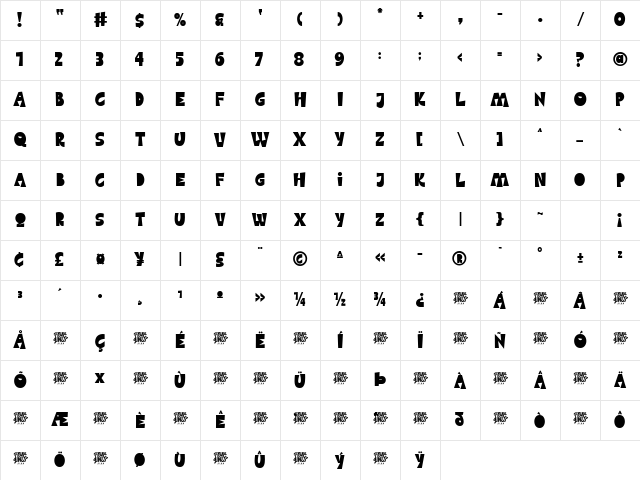
Urgent Burger Regular Free Font
Urgent Burger Regular
Foundry: Four Lines Studio
Designer: Zain Fahroni
Design Context for Urgent Burger
Urgent Burger is a composed and adaptable typeface that performs quietly and consistently across a wide range of design contexts.
Pro Tip: Use Urgent Burger in both headline and body roles to test its range before committing to a single application.
Who designed the Urgent Burger Regular font?